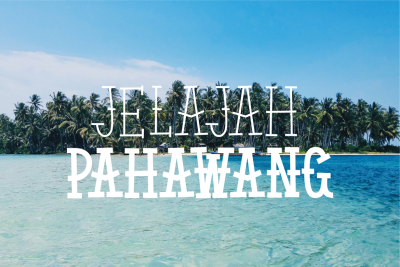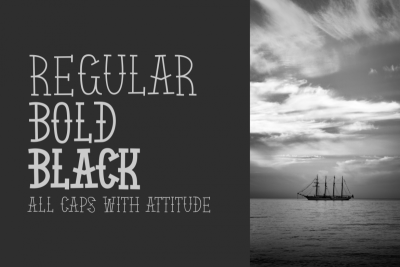
Tattoo font El Piratos is a bold, adventurous typeface inspired by the spirit of pirate life. Its letterforms combine sharp angles and playful curves, creating a unique and distinctive look. This makes it perfect for designs that evoke excitement, daring, and nautical adventure. Furthermore, its strong visual appeal ensures that your project stands out immediately.
The style of El Piratos resembles hand-carved woodcuts and classic pirate lettering. It adds a vintage yet whimsical touch to any design. Moreover, with options like regular, bold, and black, it offers versatility to suit various design needs. Whether used for logos, posters, branding, or tattoo designs, El Piratos delivers a striking look that leaves a lasting impression.
Additionally, its pirate-inspired aesthetic works well for creative, historical, or themed designs. The boldness and charm of Tattoo font El Piratos add flair to both commercial branding and personal artwork. Thus, itโs a perfect fit for projects that need to make a bold statement.
Tattoo Font El Piratos Perfect For
Tattoo font El Piratos is ideal for graphic designers, tattoo artists, and creatives looking to infuse their work with adventure and ruggedness. Moreover, itโs perfect for tattoos, pirate-themed events, and artwork requiring a vintage yet playful style. The bold, quirky letterforms add personality and uniqueness, ensuring that every design stands out.
Furthermore, businesses looking to convey a sense of adventure, rebellion, or nostalgia will love El Piratos. It works especially well for clothing brands, bars, or restaurants with nautical or pirate themes. In addition, event planners can use it for pirate-themed parties, treasure hunts, or any designs requiring a bold, adventurous look.
Tattoo artists will especially appreciate the versatility of El Piratos. It fits well with both traditional and contemporary tattoo styles. Its pirate aesthetic brings a bold, distinctive look, making it an excellent choice for custom lettering and unique designs.
In conclusion, Tattoo font El Piratos is bold, adventurous, and versatile. Itโs perfect for tattoos, branding, and event designs. If youโre looking to add pirate-themed fun and excitement, this font is the ideal choice for your projects.